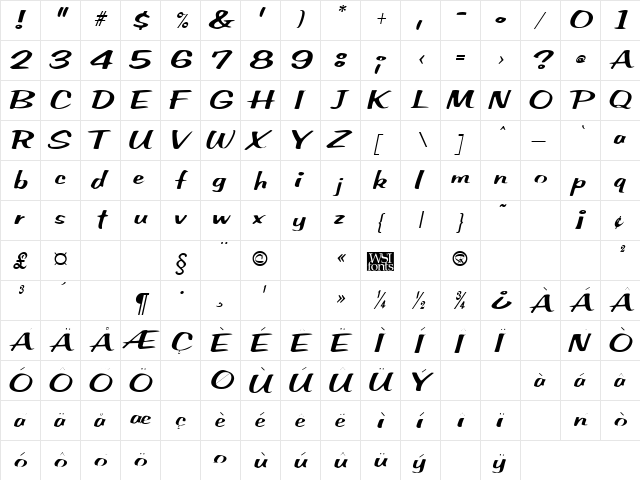
SeldaneScript Italic
Design Context for SeldaneScript Typeface
SeldaneScript flows with the natural rhythm of handwritten lettering, making it ideal for designs that call for warmth and personal expression.
Font Pairing: Combine SeldaneScript with a simple geometric sans for maximum contrast — the tension between flowing curves and clean structure is a classic typographic pairing.
Pro Tip: Use SeldaneScript for short runs of text — names, titles, or taglines. Extended body copy in script faces tires the eye quickly.